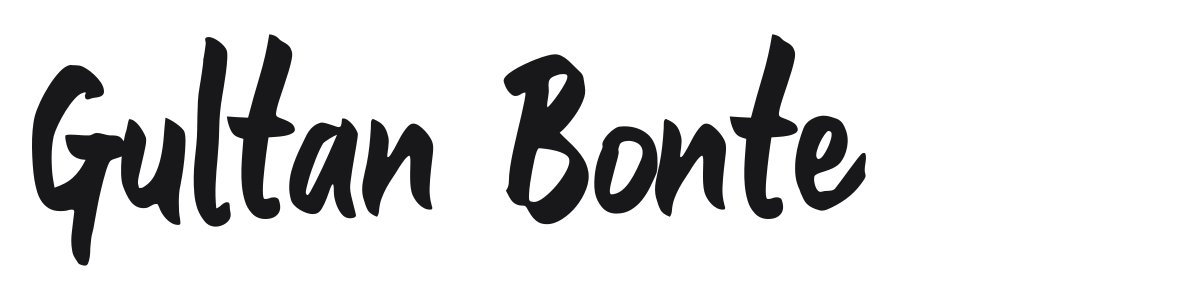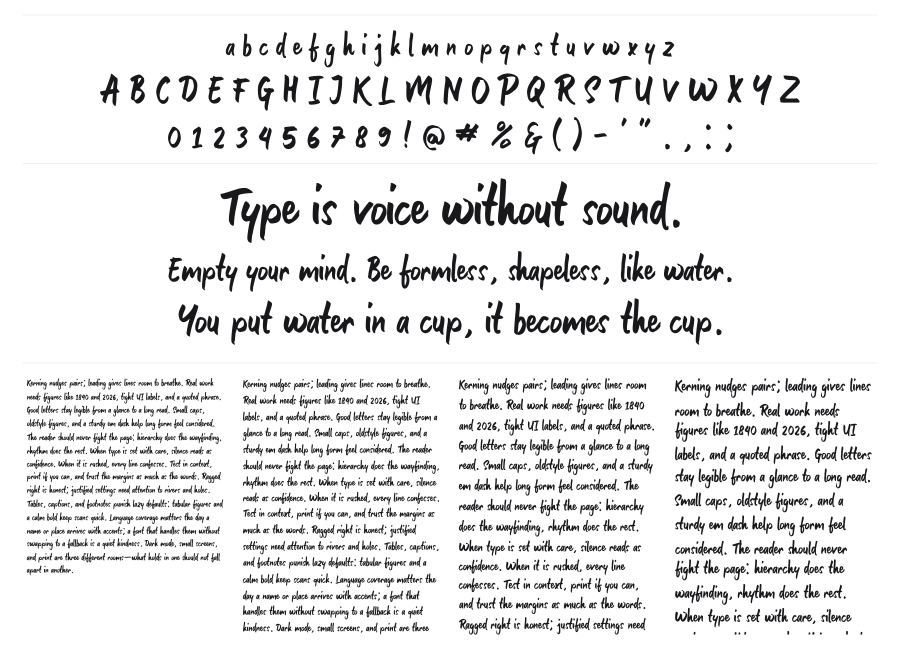
Gultan Bonte
Gultan Bonte is a casual brush script with strong forward slant and the lively irregularity of a thick marker moving fast across paper. The variable stroke contrast and slightly rough edges give it genuine hand-lettered character rather than a polished digital feel. It works best at headline and display sizes where that energy reads clearly.